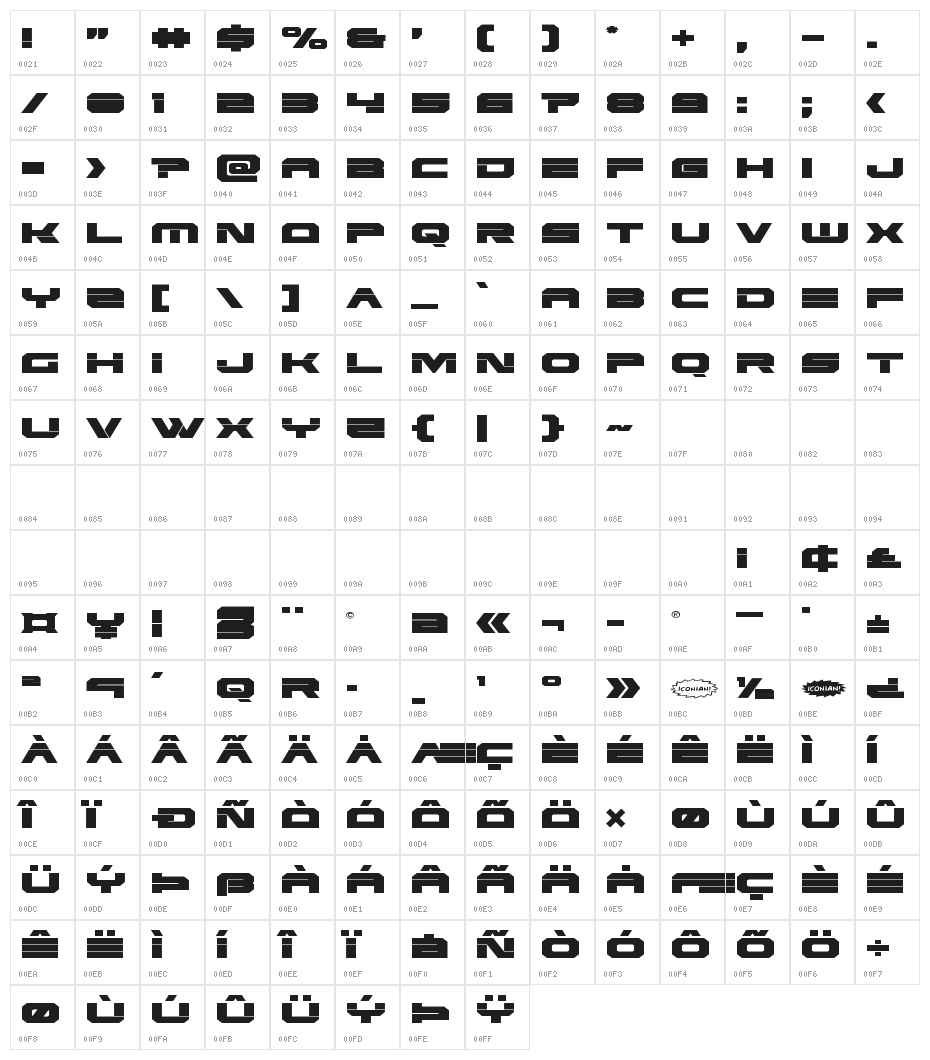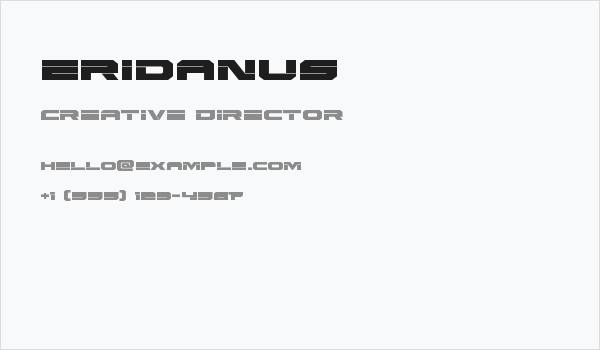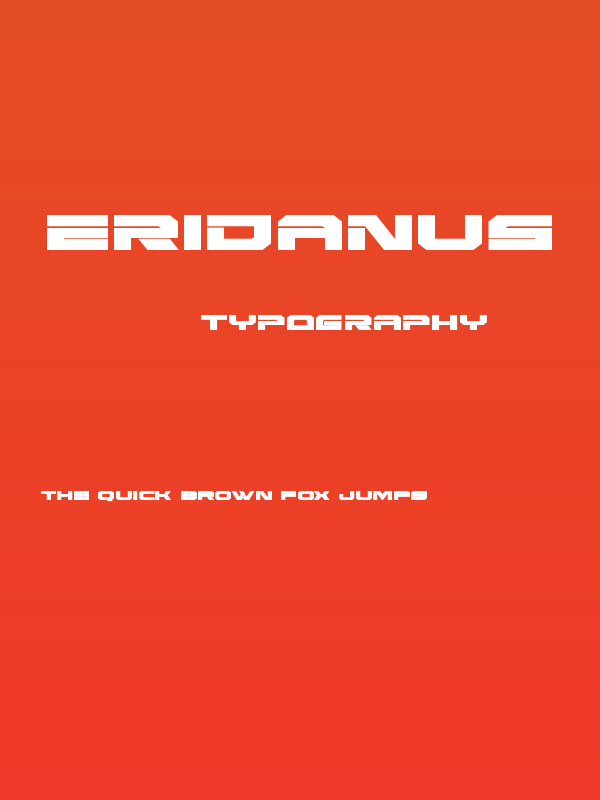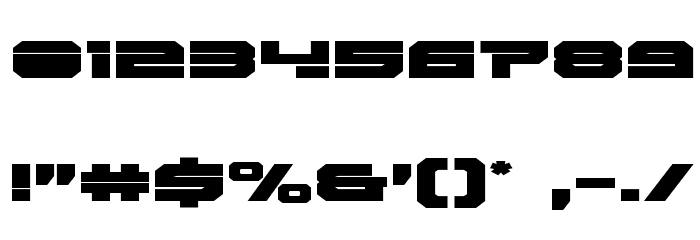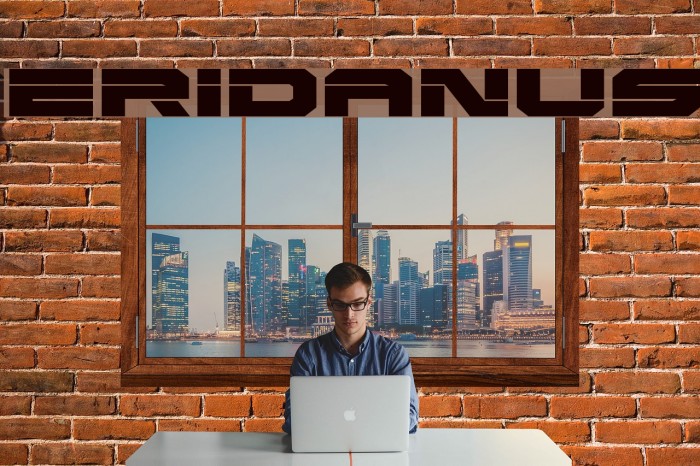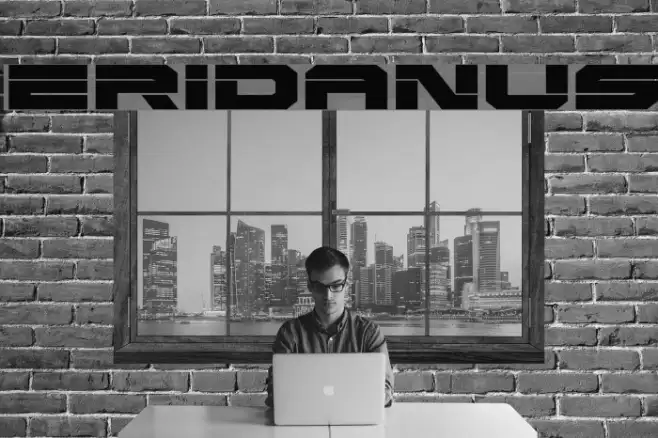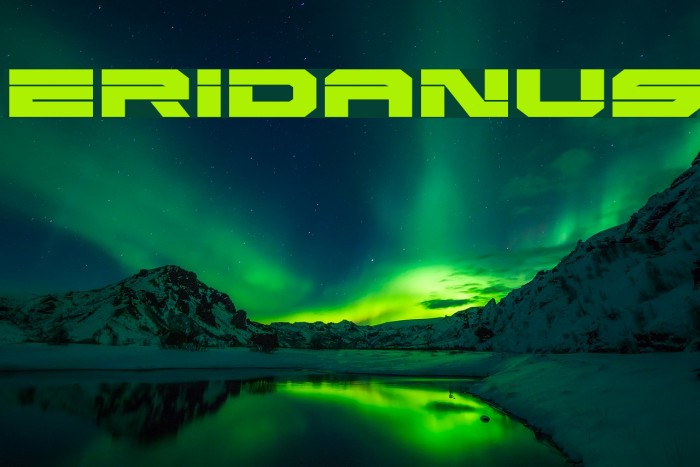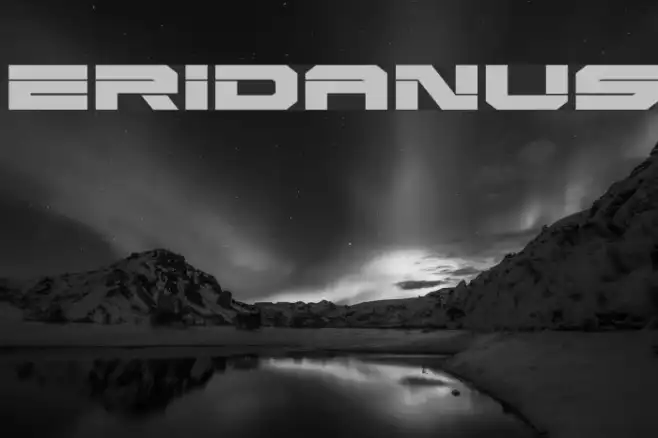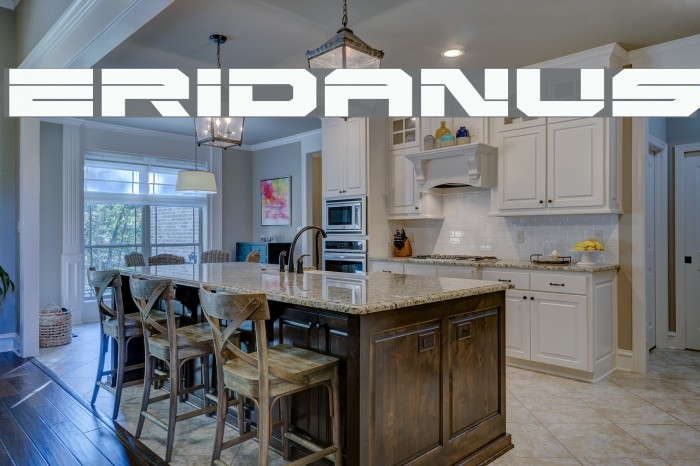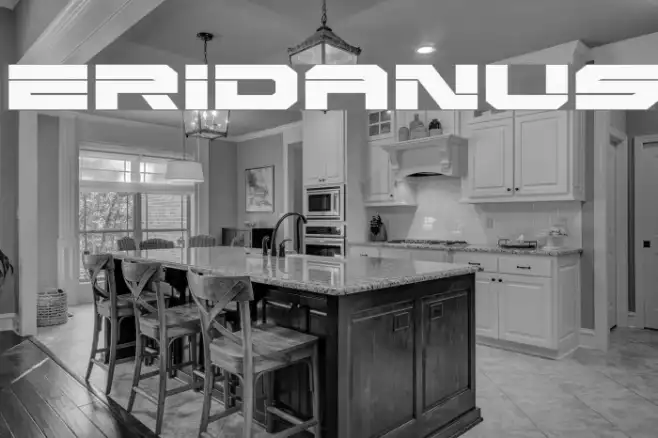
Eridanus Font
Eridanus Description
This font features a bold, futuristic design with a strong geometric influence. The characters are constructed with sharp angles and straight lines, giving it a distinctly modern and digital appearance. The uppercase letters are particularly striking, with a blocky, almost mechanical feel. The lowercase letters maintain this aesthetic, ensuring consistency across the typeface. The numerals are equally bold and angular, fitting seamlessly with the overall style. Special characters are designed to match the boldness and angularity of the alphabet, making this font ideal for projects that require a strong, impactful visual presence.
| Proposed Projects | Ideal for technology branding, video game titles, sci-fi movie posters, and modern digital interfaces. |